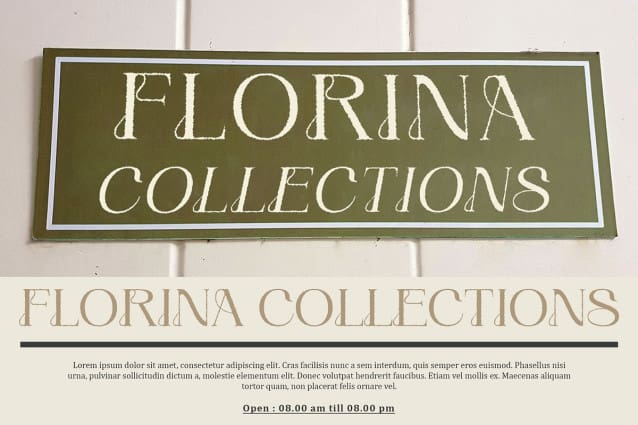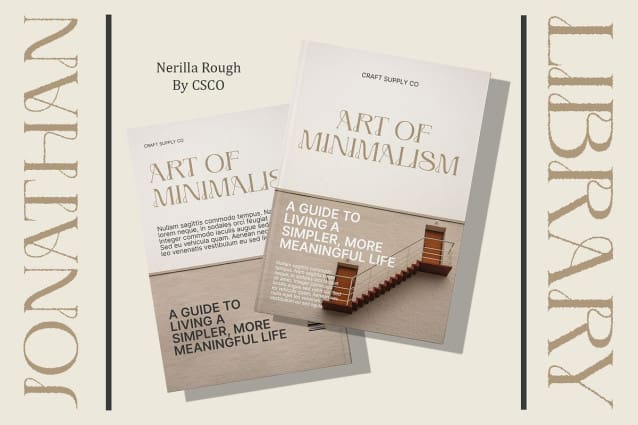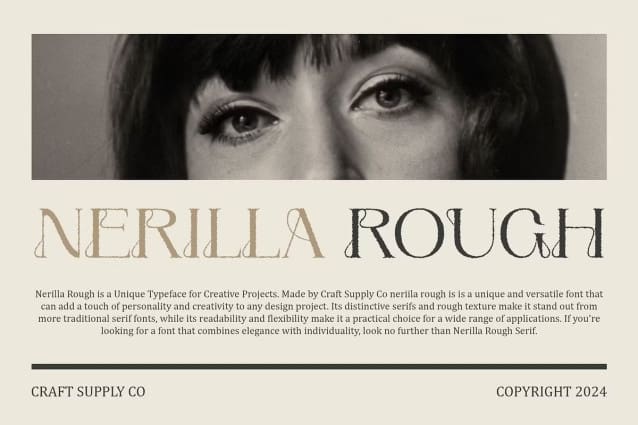
Nerilla Rough Font
Nerilla Rough Font: Capturing Vintage Elegance. Inspired by Art Nouveau Nerilla Rough draws inspiration from the intricate curves and decorative motifs of Art Nouveau. Its serif design reflects the elegant aesthetic of the early 20th century art movement.
Moderate Contrast Sophistication With a moderate contrast serif style, This font exudes sophistication and refinement. The balance between thick and thin strokes adds depth and character to its vintage-inspired appearance.
Vintage Charm with Rough Texture The rough texture effect applied to This font enhances its vintage charm, giving it an authentic retro vibe. This unique feature makes it perfect for projects seeking to evoke nostalgia or celebrate the aesthetics of bygone eras.
Versatile Retro Appeal From signage to branding, This font offers versatile retro appeal. Whether used for posters, packaging, or editorial design, its Art Nouveau-inspired silhouette and rough texture elevate any project with a touch of vintage elegance.
Timeless Elegance with a Vintage Twist This font embodies timeless elegance with its Art Nouveau-inspired serif design and rough texture effect. Perfect for vintage and retro-themed projects, it captures the essence of a bygone era while offering versatility and sophistication for modern design applications.